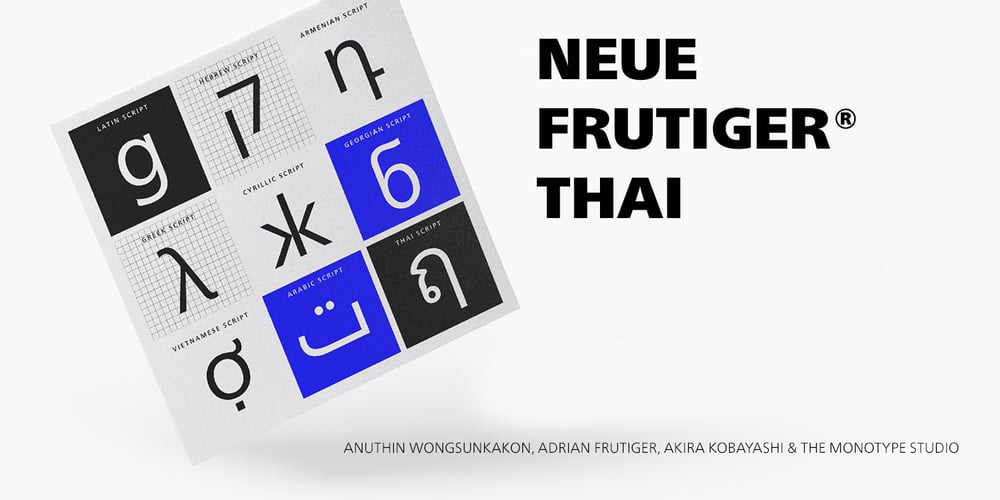
Neue Frutiger Thai Font Family was designed by Adrian Frutiger, Akira Kobayashi, Anuthin Wongsunkakon and published by Linotype. Neue Frutiger Thai contains 30 styles and family package options. Neue Frutiger Thai was created by Anuthin Wongsunkakon and a team of designers and font engineers from the Monotype Studio, under the direction of Monotype type director Akira Kobayashi. The family is available in 10 weights from Ultra Light to Extra Black in both Traditional (loop terminals) and Modern (loop-less terminals) styles. Neue Frutiger Thai embodies the same warmth and clarity as Adrian Frutiger’s original design, but allows brands to maintain their visual identity, and communicate with a consistent tone of voice, regardless of the language. It is part of the Neue Frutiger World collection, offering linguistic versatility across environments – suited to branding and corporate identity, advertising, signage, wayfinding, print, and digital environments.